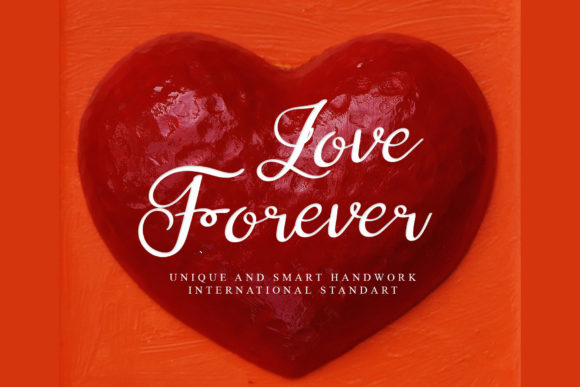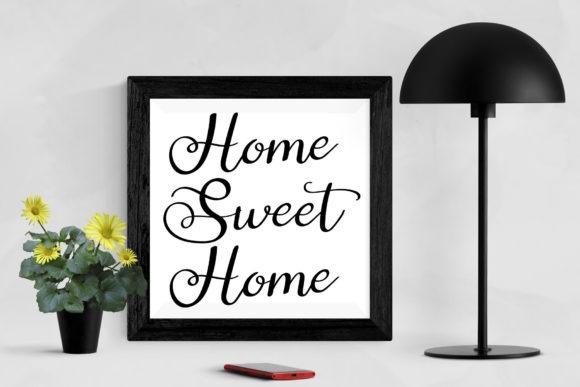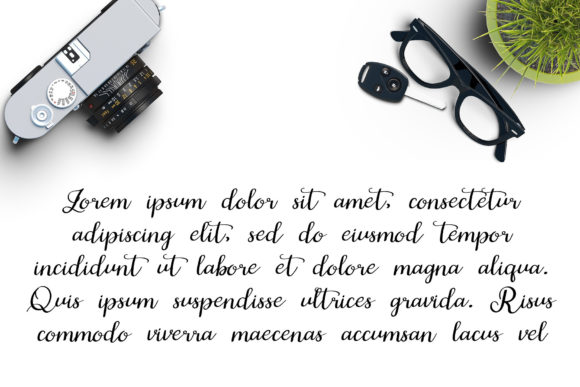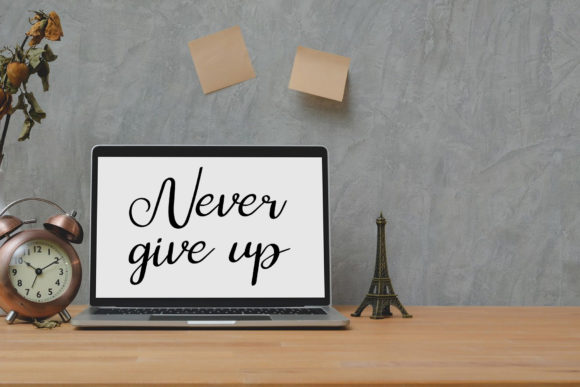
About Vintage Wedding Font
Vintage Wedding is a lovely script font featuring charming, playful characters that seem to dance along the baseline. Add this font to your most creative ideas, and notice how it makes them stand out!â¨